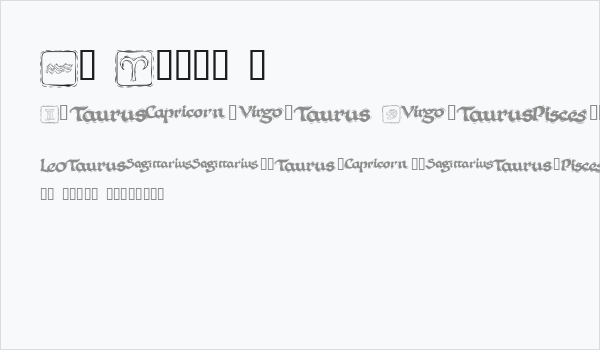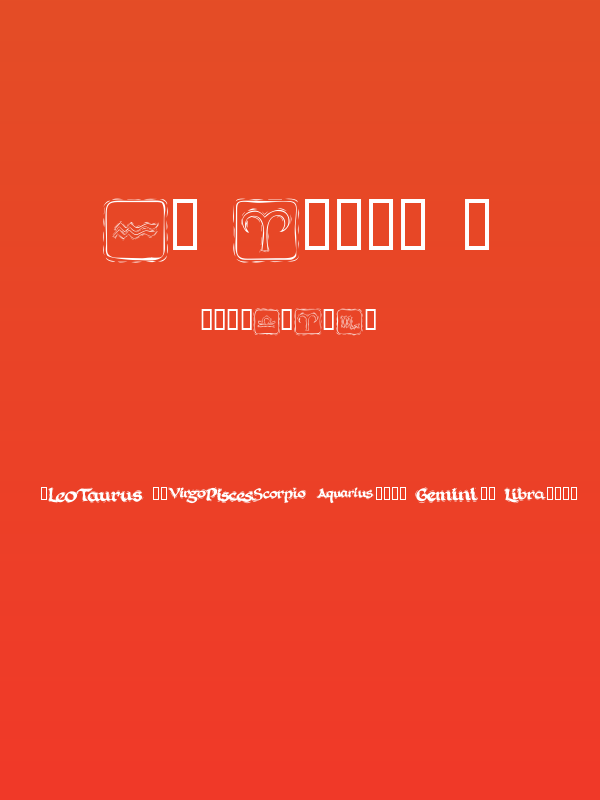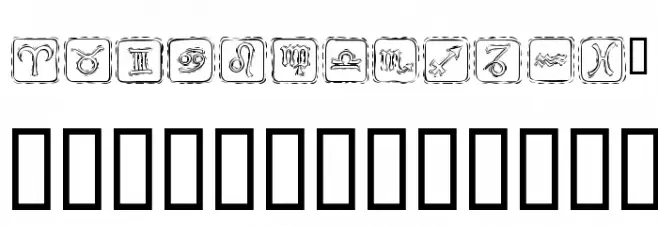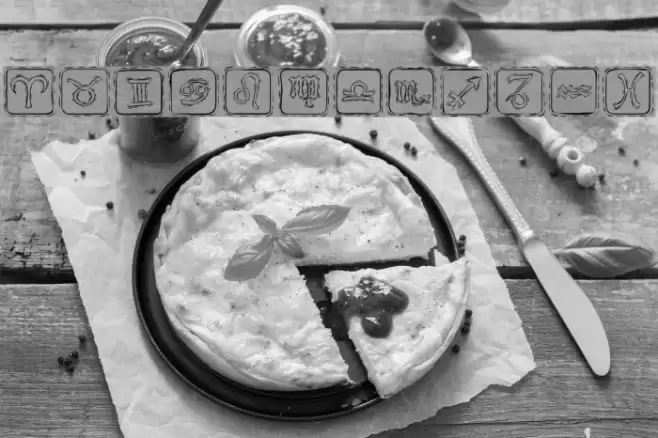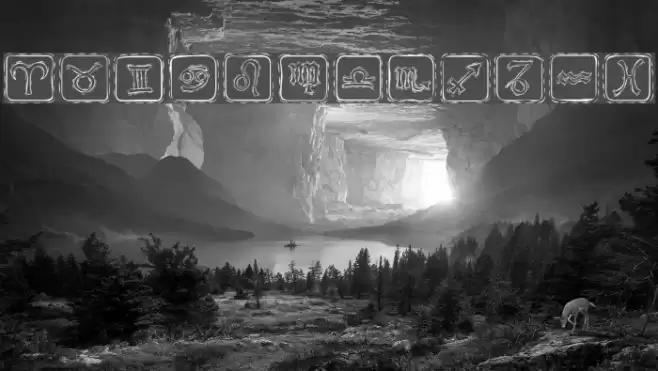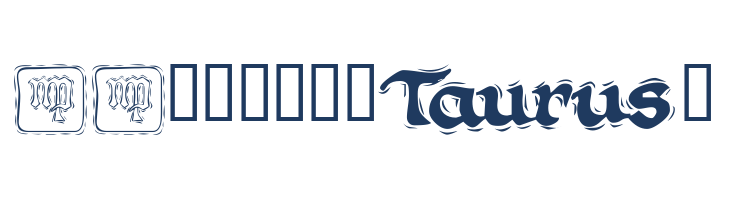
KR Astro 1 Font
This decorative font features a series of intricate zodiac symbols, each enclosed within a square frame. The symbols are stylized with a hand-drawn appearance, giving them a unique and artistic flair. The font captures the essence of astrology with its detailed and ornate design, making it ideal for projects that require a mystical or celestial theme. The symbols are evenly spaced within their frames, ensuring clarity and balance in design applications.
| Use Case | Logos, Decorative elements, Themed invitations |
| Proposed Projects | Ideal for astrology-themed designs, horoscopes, mystical event invitations, or decorative elements in publications related to zodiac signs. |